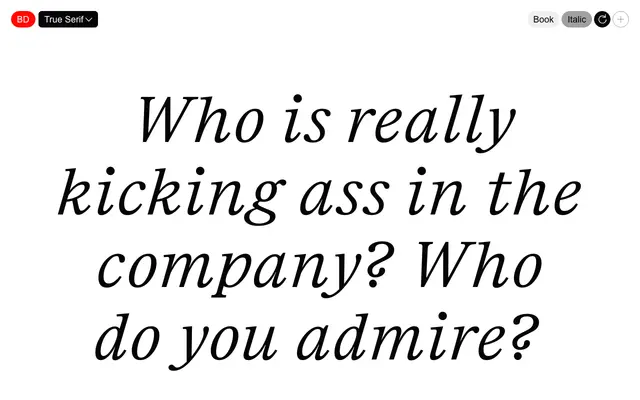
True Serif
A minimal two-style serif from Bold Decisions, offering a single Book weight with matching Italic for text-setting work.
True Serif is stripped back to essentials: a Book weight and its Italic, with no additional weights cluttering the family. The restraint suggests a typeface conceived for body copy and sustained reading rather than headline or display applications. Little additional information is available from the page, making it difficult to assess the full scope of the design.
The family offers Book and Italic weights only, suggesting a text-focused serif designed for sustained reading rather than display use.